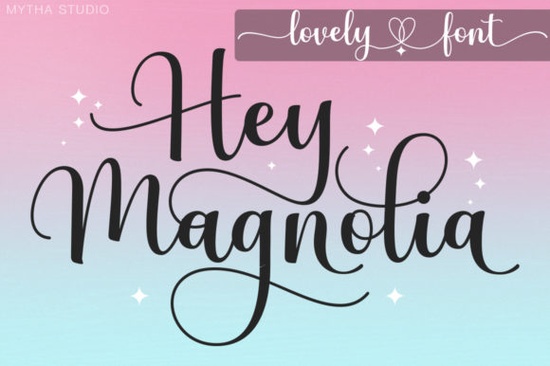
If you've been searching for a handwritten font that feels personal, elegant, and versatile enough for a range of projects, Hey Magnolia is worth a close look. This beautifully crafted script font stands out with its flowing letterforms and carefully designed swashes. Whether you're working on wedding invitations, logo designs, or print-on-demand products, Hey Magnolia Font offers a hand-lettered feel that's hard to replicate with standard typefaces.
What Makes Hey Magnolia Different from Other Script Fonts?
There are thousands of script fonts available online, so what sets this one apart? The short answer is craftsmanship. Hey Magnolia was masterfully designed with attention to every curve, stroke, and connection between letters. It doesn't look auto-generated or overly digital. Instead, it carries the warmth and imperfection of genuine hand lettering, which is exactly what gives it character.
The font includes a full set of alternate glyphs and decorative swashes. Because it's PUA encoded, you can access every single one of those extras without needing special design software. This is a big deal if you use programs like Cricut Design Space, Silhouette Studio, or even basic word processors. All the flourishes and stylistic alternatives are just a character map click away.
What Can You Create with a Handwritten Font Like This?
Handwritten fonts are some of the most versatile typefaces for creative work. Here are a few practical ways designers and crafters use Hey Magnolia:
- Wedding stationery invitations, RSVP cards, menu cards, and place settings
- Logo and branding design especially for boutique shops, florists, bakeries, and lifestyle brands
- Print-on-demand products mugs, tote bags, t-shirts, and greeting cards
- Social media graphics quote posts, story templates, and promotional banners
- DIY crafting projects vinyl decals, heat transfers, and scrapbooking layouts
The flowing, connected style of this font makes it especially suited for projects where you want a personal, handcrafted look without spending hours on actual calligraphy.
How Does PUA Encoding Help You?
If you've ever downloaded a font only to find that half the special characters are inaccessible, you know the frustration. PUA (Private Use Area) encoding solves that problem. With Hey Magnolia, every glyph, swash, and alternate letter is mapped to the Unicode Private Use Area, which means you can reach them through your system's character map or any font viewing tool.
This is particularly helpful for Cricut and Silhouette users who don't have access to OpenType features in their cutting software. You can still use all the beautiful extras that come with the font.
Pairing Hey Magnolia with Other Fonts
Having a small, well-chosen font library lets you mix and match typefaces quickly across different projects without settling for generic combinations.
Is This Font Good for Cricut Projects?
Yes, and Creative Fabrica even includes this font in their CF Class: Introduction to Cricut Design Space. If you're new to using custom fonts with your cutting machine, that class walks you through the process step by step. Hey Magnolia's clean letter connections and PUA encoding make it a solid choice for vinyl projects, paper crafts, and heat press designs.
Just keep in mind that very thin strokes in any script font can sometimes be tricky to weed with a Cricut. If you're cutting small text, consider slightly increasing the size or using a bold variation if available.